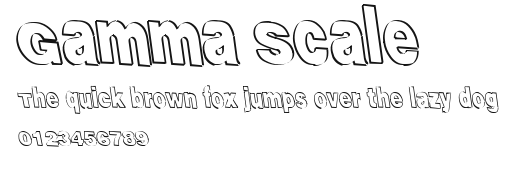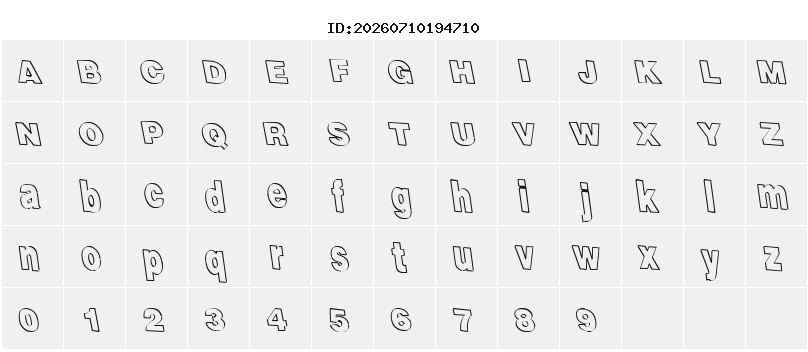
Gamma Scale Preview
• Font Name: Gamma Scale
• Full Font Name: Gamma Scale
About Gamma Scale.ttf
Gamma Scale.ttf is a modern, elegant sans-serif font designed for ultimate readability and visual harmony. Perfect for branding, headlines, web design, and print materials.